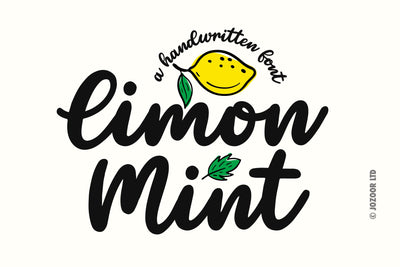
Limon Mint - Fresh Script Font
Limon Mint is a fresh, stylish, modern, and flowing handwritten script font. It has beautiful and well-balanced characters and as a result, it matches a wide pool of designs. Add it to your most creative ideas and notice how it makes them come alive! Comes with free doodles clipart for use with any design.